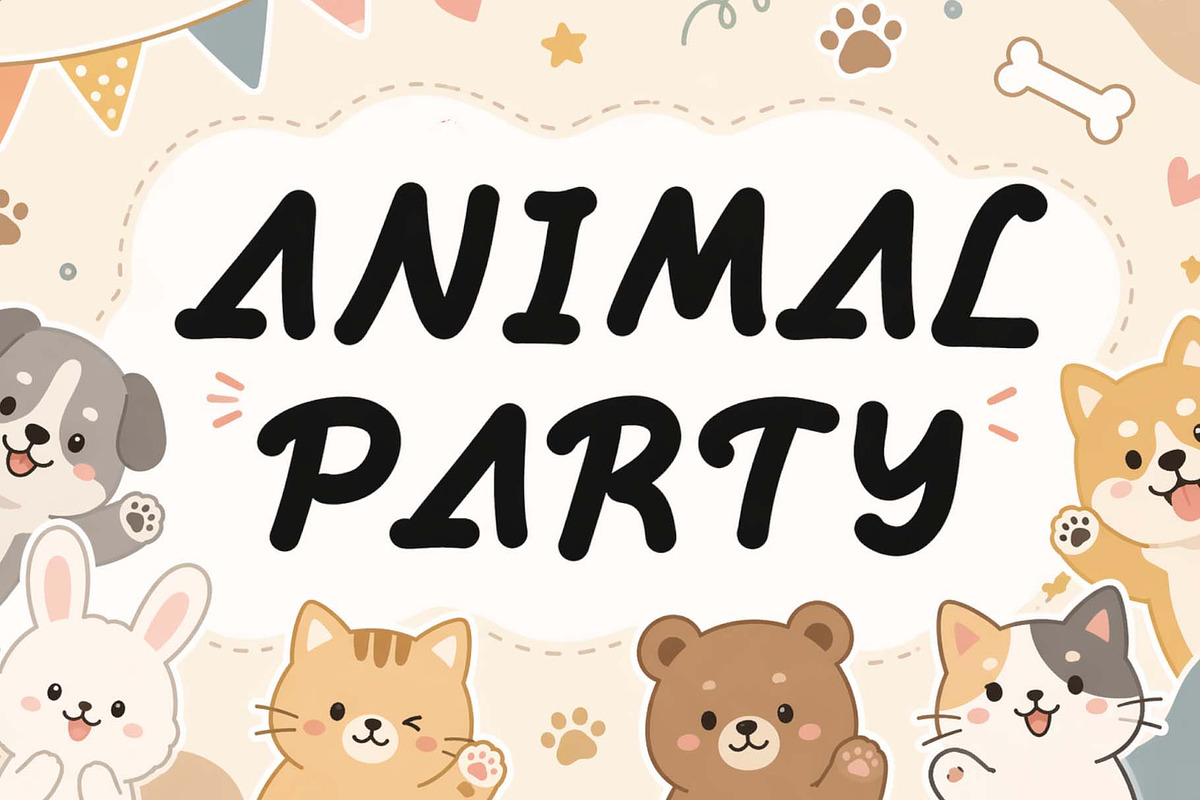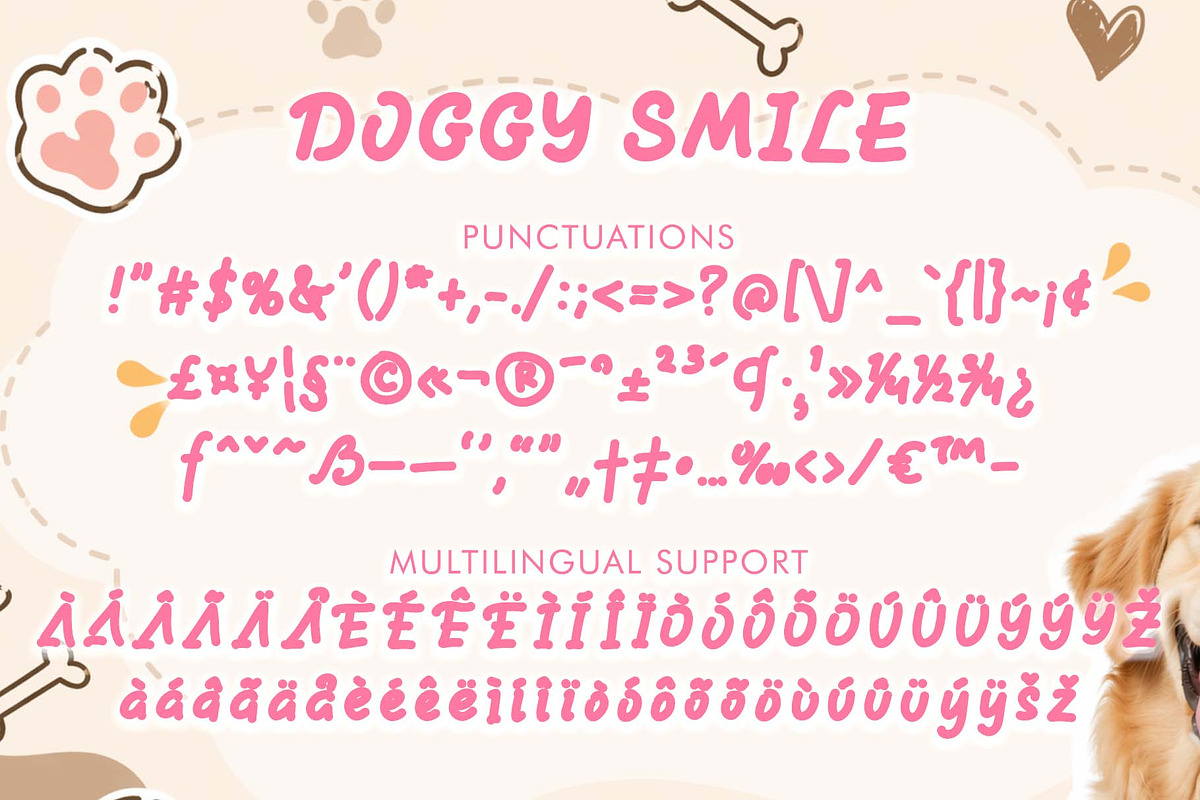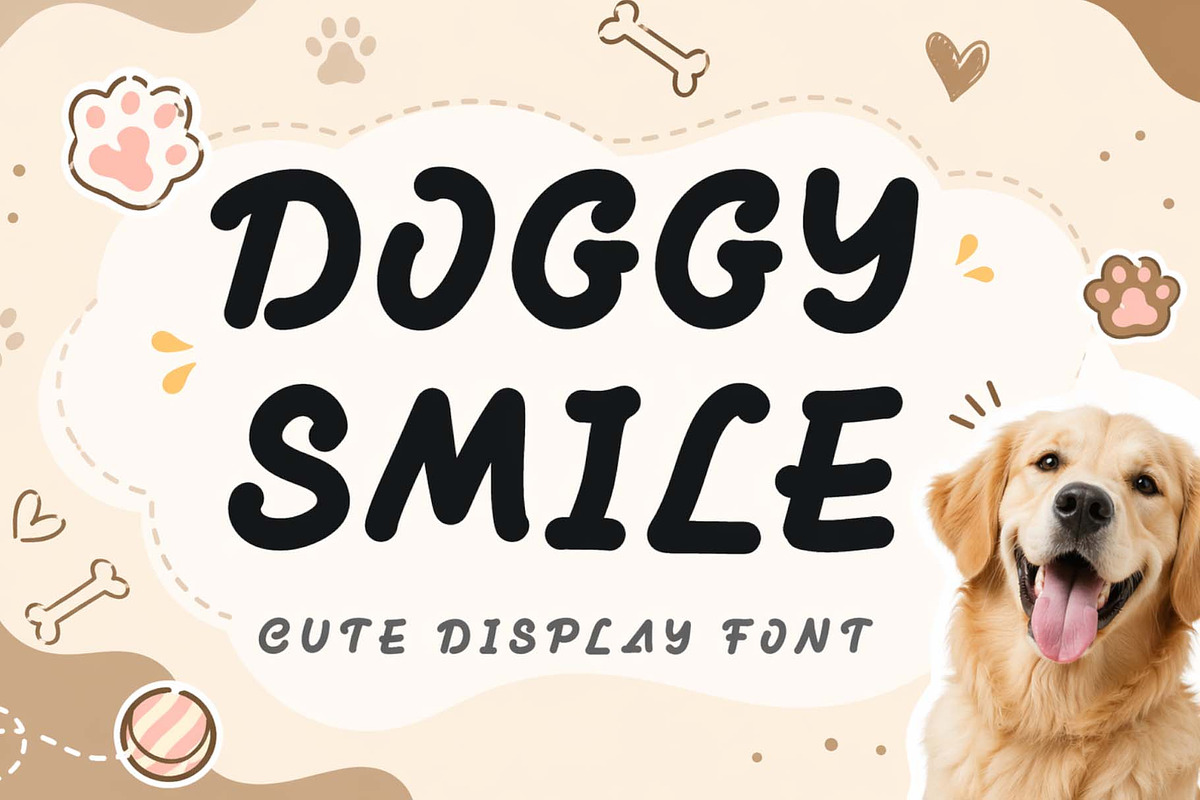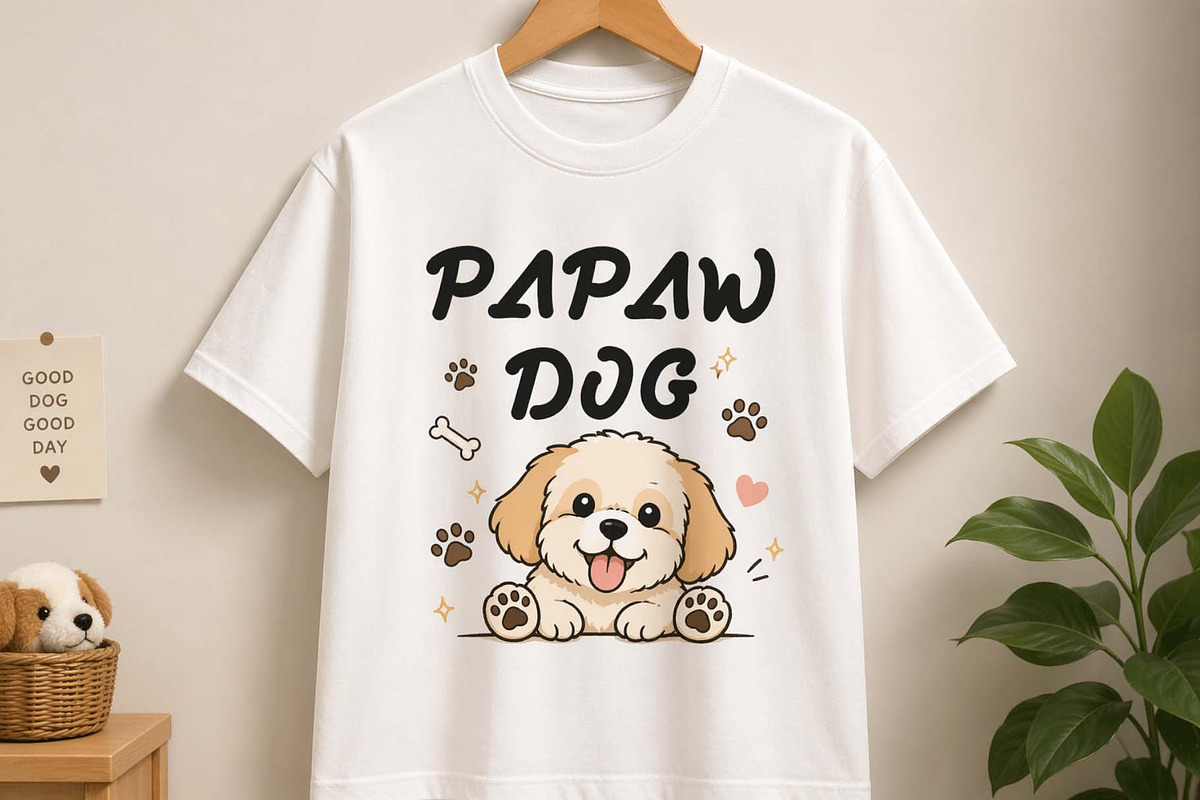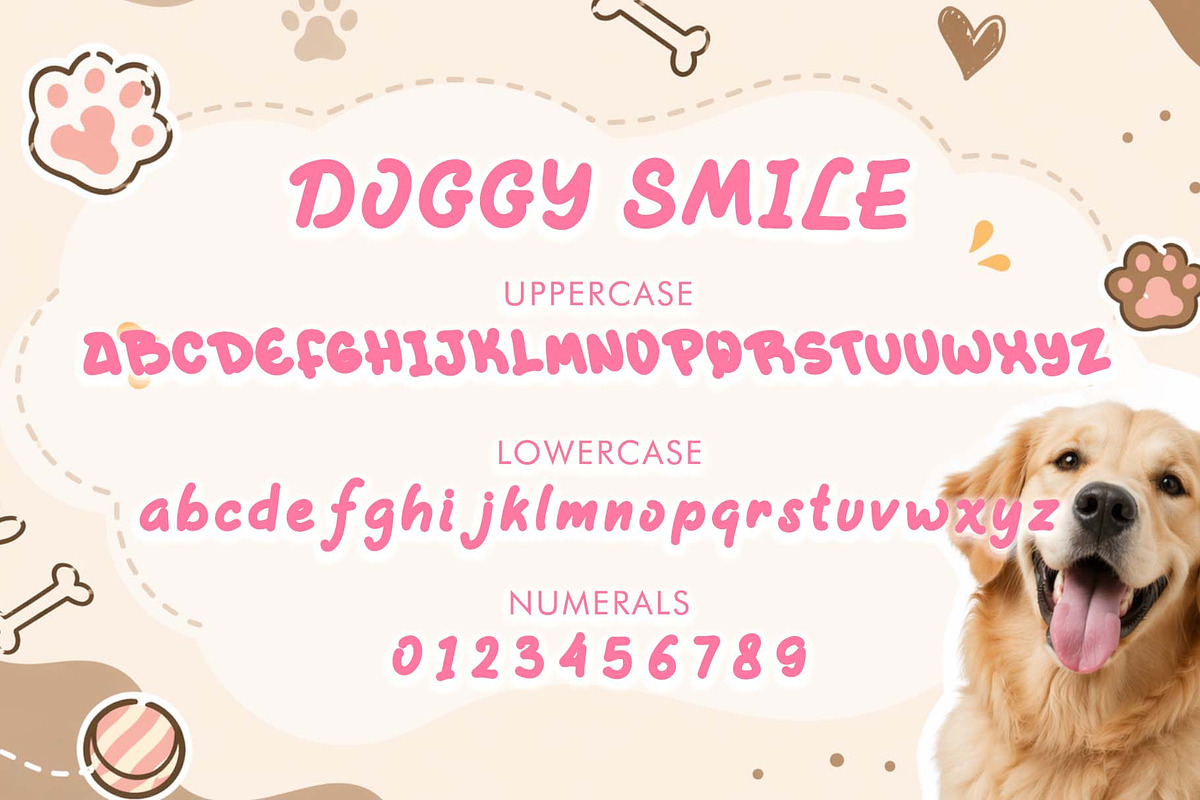
Doggy Smile
“Doggy Smile” is a unique and fun display font. It features uppercase and lowercase letters, numbers, punctuation, alternates, and multilingual support. It’s perfect for animal-themed fonts, Easter, spring, summer, Christmas, cartoons, comics, fairy tales, children’s books, magazines, tattoos, stickers, Mother’s Day, embroidery, flowers, St. Patrick’s Day, and more.